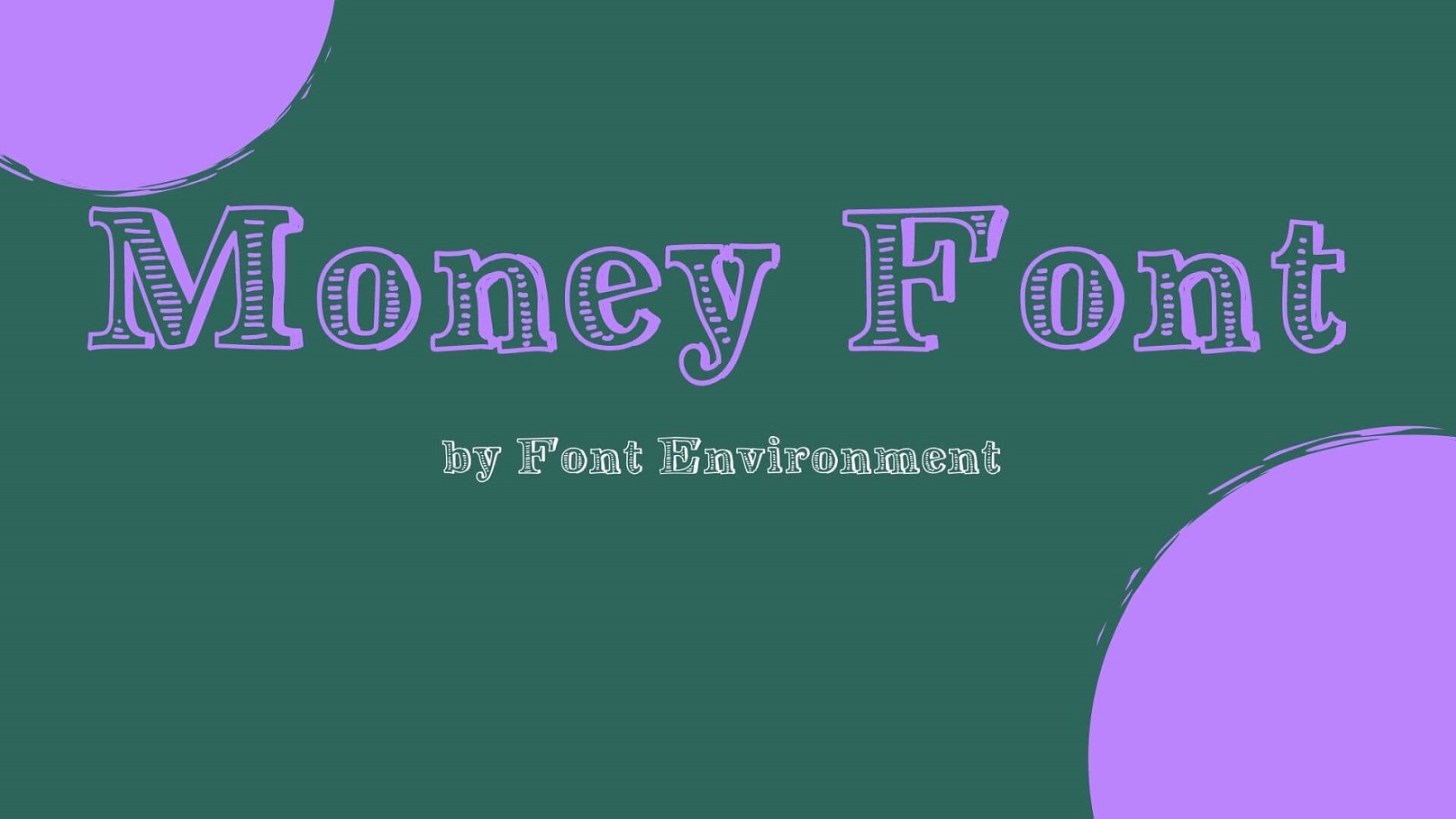
Money Font Family has been inspired by the U.S currency and when this typeface is used with Tetris font this will create decorative and vintage designs that would be ideal for a different artwork of your choice.
The gothic and vintage styling of this typeface will definitely add a natural look to the designs and by making use of this font generator you can amazing types of designs for free.
Money Font
NameMoney Font
DesignerFancy
TypeSpencer & Sons Co